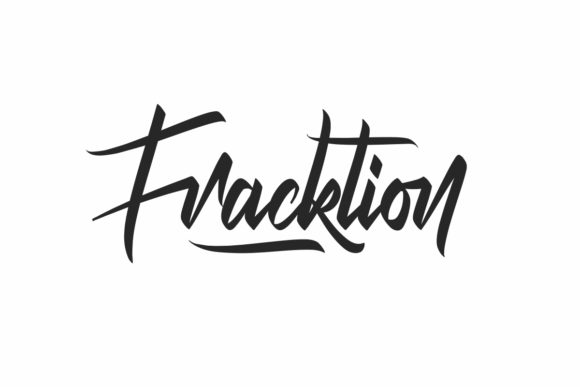
Fracktion Font
Step into the world of Fracktion, a captivating script font family designed to infuse your next crafting project with a dash of playful elegance. Inspired by the beauty of handwritten notes, Fracktion dances across your designs with a lively and contemporary rhythm, making it the perfect choice for those seeking a unique and personal touch.
Immerse yourself in the world of Fracktion, where each letter is a celebration of creativity, a testament to the artistry of the human hand. Bring your wedding menus to life with a splash of whimsical charm, allowing your guests to savor the moment with every glance at the elegantly scripted words.
Fracktion is more than just a font; it's an invitation to embark on a creative journey, to explore the boundless possibilities of self-expression. Whether you're designing invitations, greeting cards, or crafting heartfelt messages, Fracktion will become your trusted companion, guiding you towards stunning and unforgettable results.
With Fracktion, the ordinary becomes extraordinary. Its versatility knows no bounds, effortlessly blending with different design styles, from the classic and timeless to the quirky and unconventional. Unleash your creativity and let Fracktion unveil the hidden depths of your imagination.
The ease of use and accessibility of Fracktion make it the perfect choice for designers of all skill levels. Its PUA encoding allows you to effortlessly access the full range of glyphs and swashes, empowering you to add intricate details and flourishes to your designs with effortless grace.
With Fracktion, you'll discover a font that reflects your individuality, a font that speaks to your unique style and vision. It's more than just a collection of characters; it's a tool that empowers you to create designs that resonate with your audience, leaving a lasting impression that they'll cherish forever.